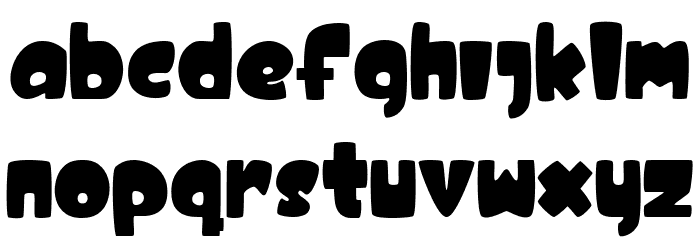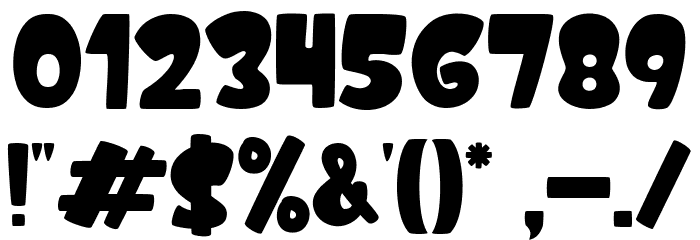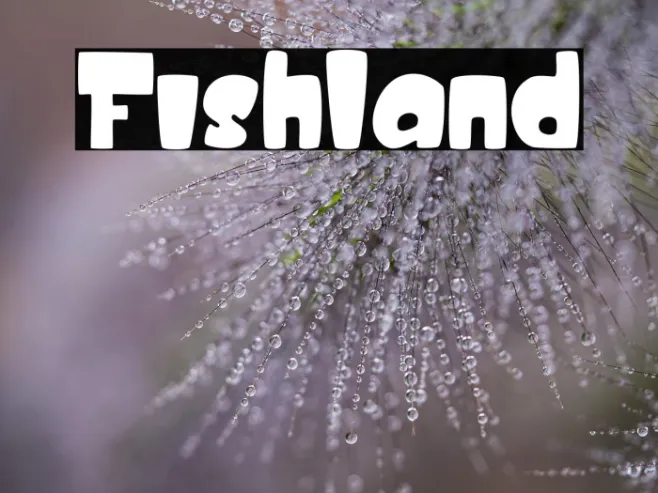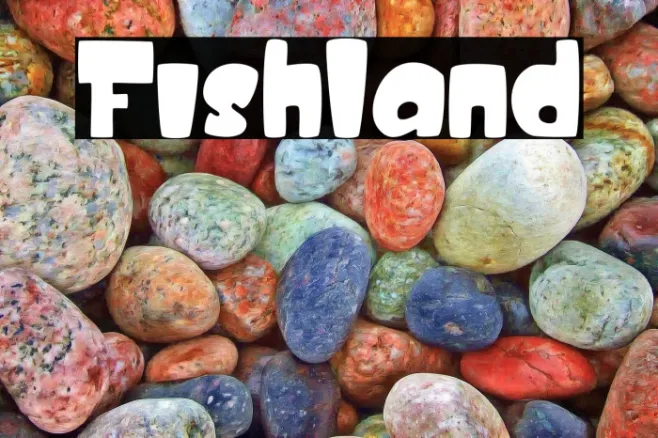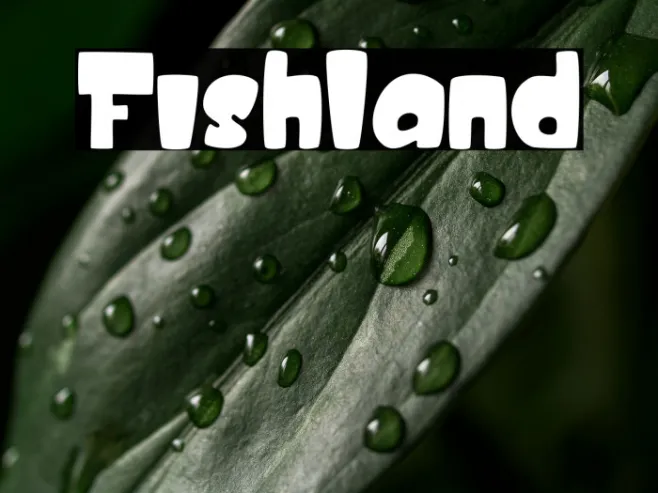
Fishland Font
This playful and bold font features thick, rounded characters with a whimsical and cartoonish style. The letters are uniformly heavy, giving a sense of fun and approachability. The uppercase and lowercase letters maintain a consistent weight, while the numbers and special characters follow the same design ethos, ensuring a cohesive look. The font's exaggerated curves and soft edges make it ideal for projects that require a touch of humor and creativity. Its distinct appearance is both eye-catching and memorable, making it suitable for a variety of playful and informal applications.
A bold, playful font with thick, rounded characters and a whimsical style.
- Proposed Projects: Ideal for children's books, playful branding, comic strips, and party invitations.
- Overall Style: Playful, Whimsical